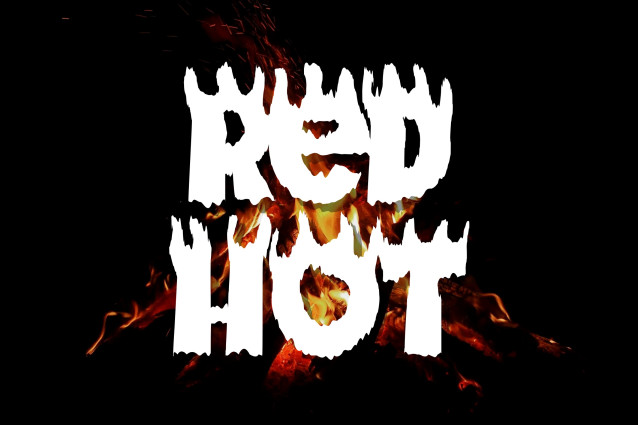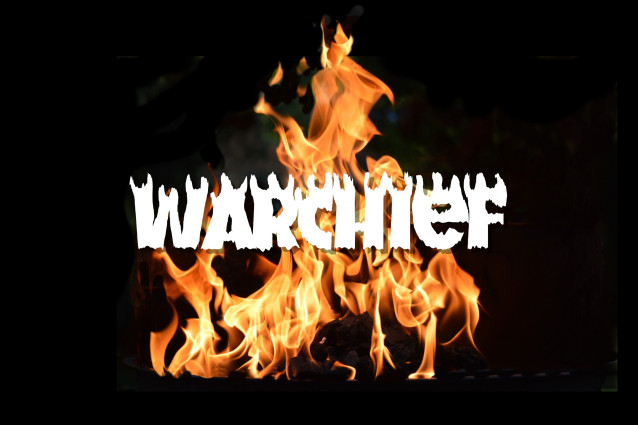
Handwriting Fire Font
Handwriting Fire is a dynamic script font that brings energy and flair to your designs with its bold, hand-drawn strokes and a touch of flame-inspired style. Perfect for eye-catching titles, adventurous quotes, gaming content, edgy branding, or Halloween-themed projects, this font ignites creativity with every letter. Its expressive, handcrafted style makes a striking impact on both digital and print creations.